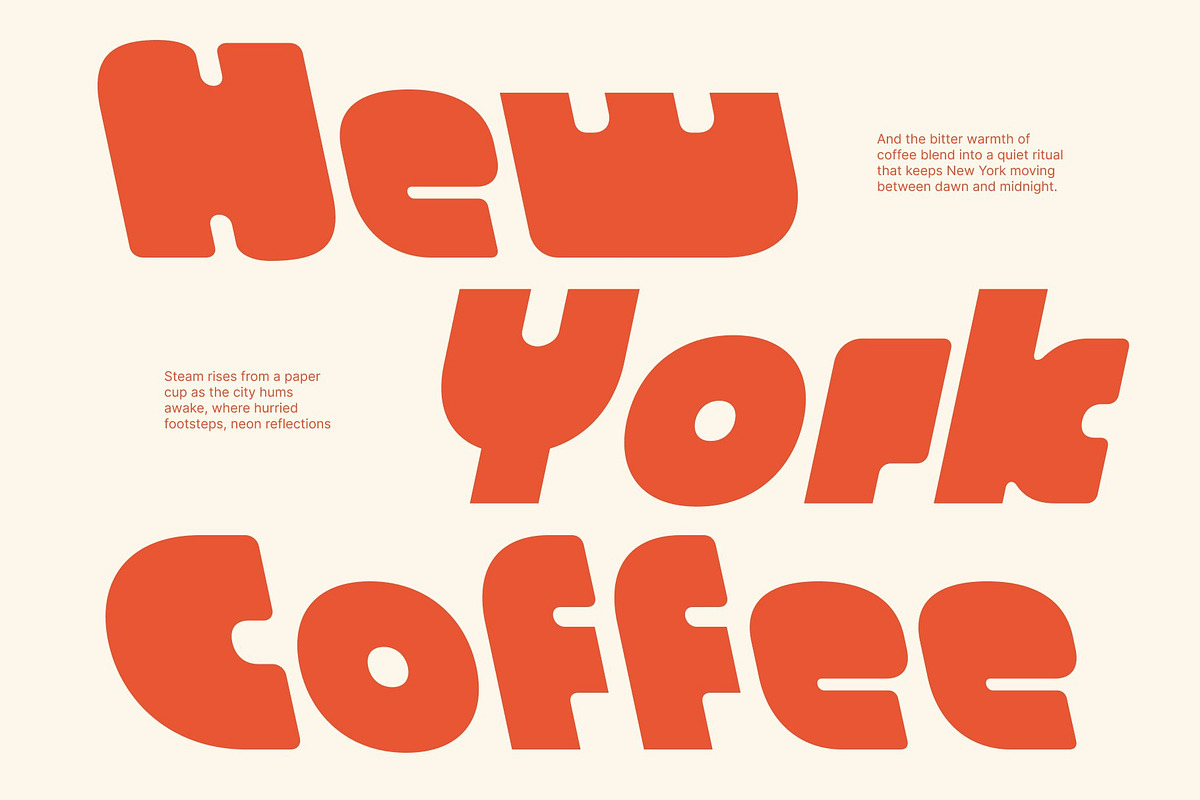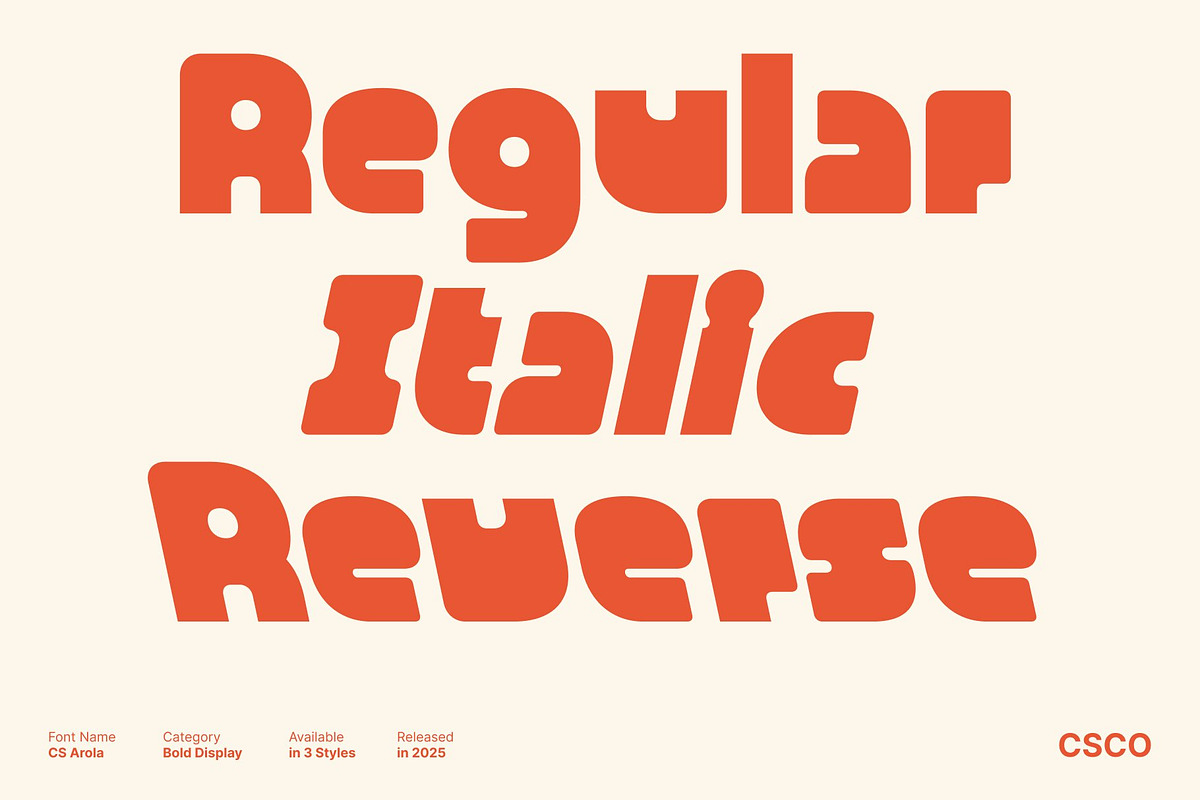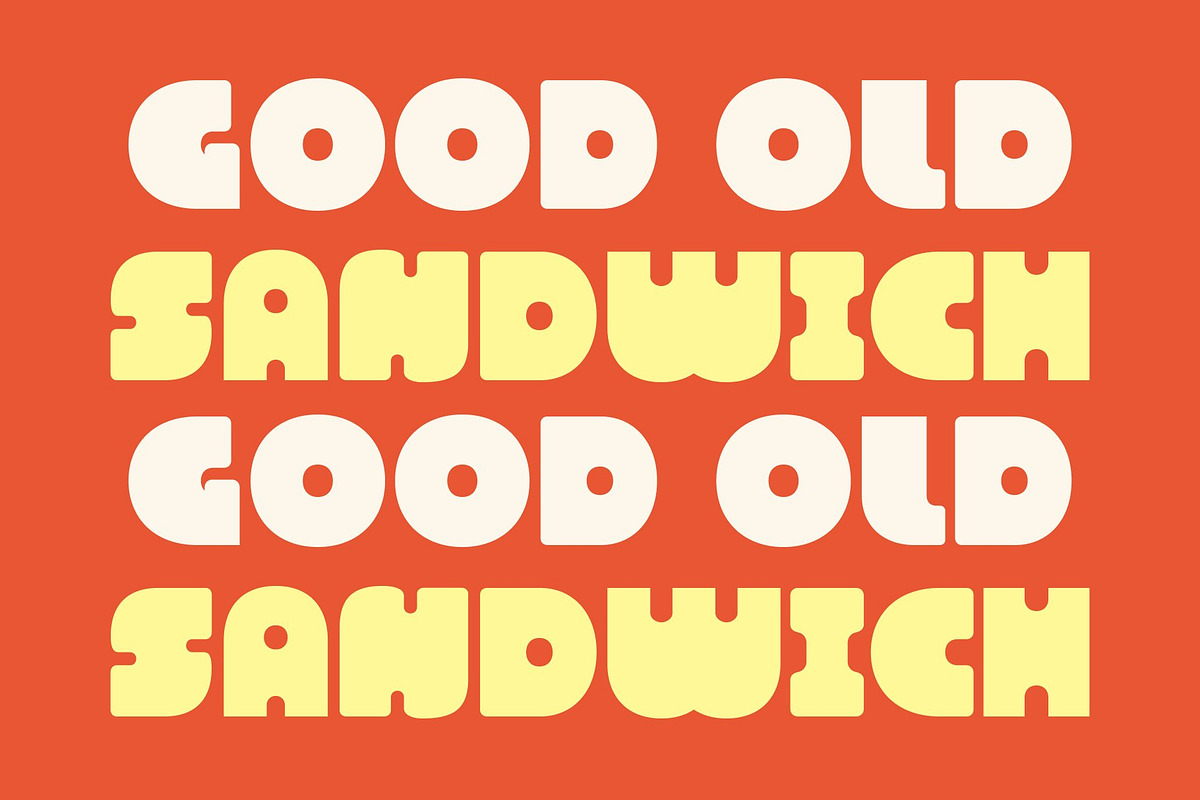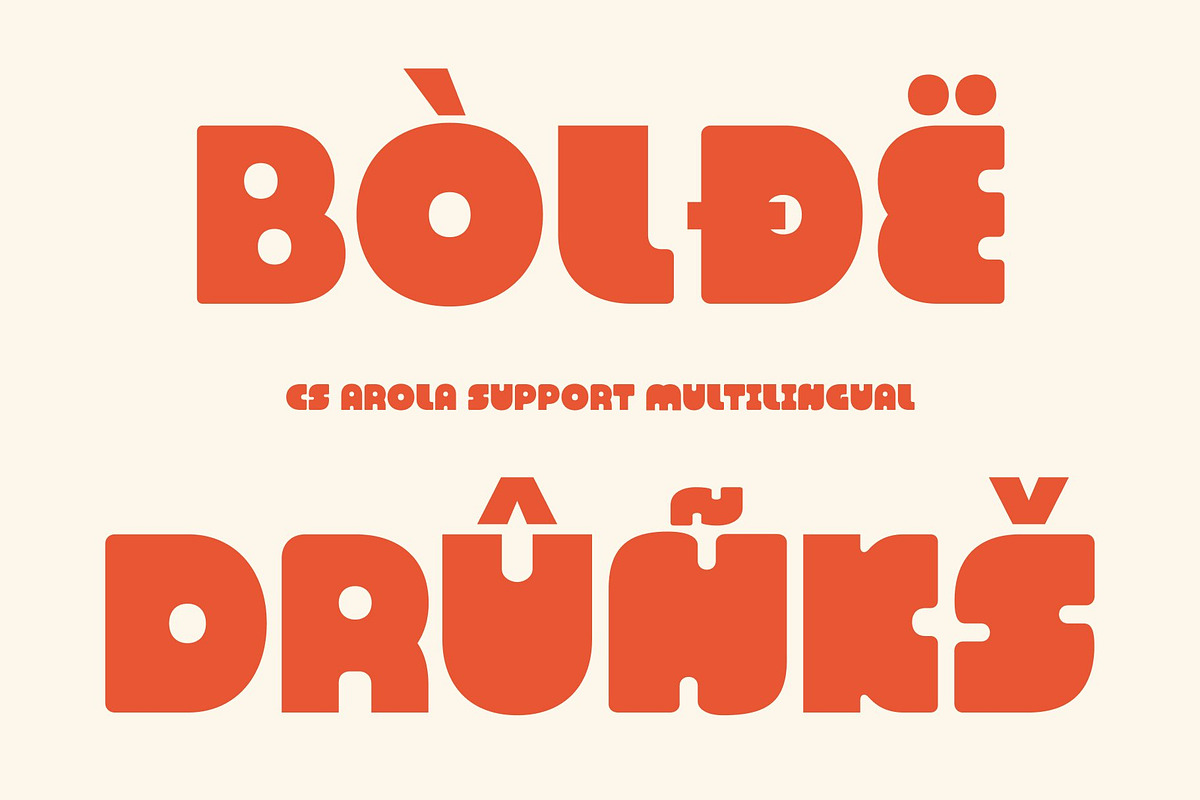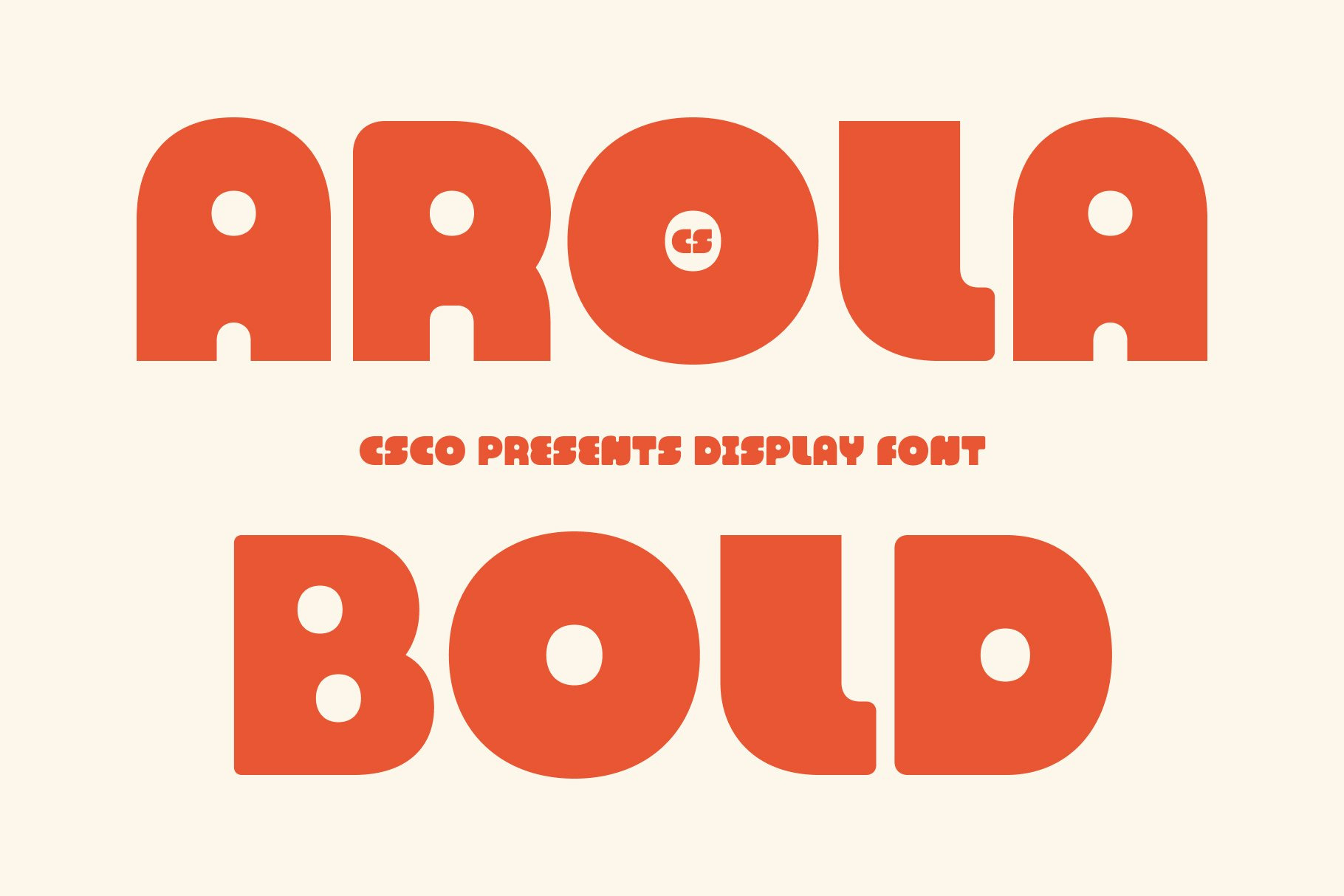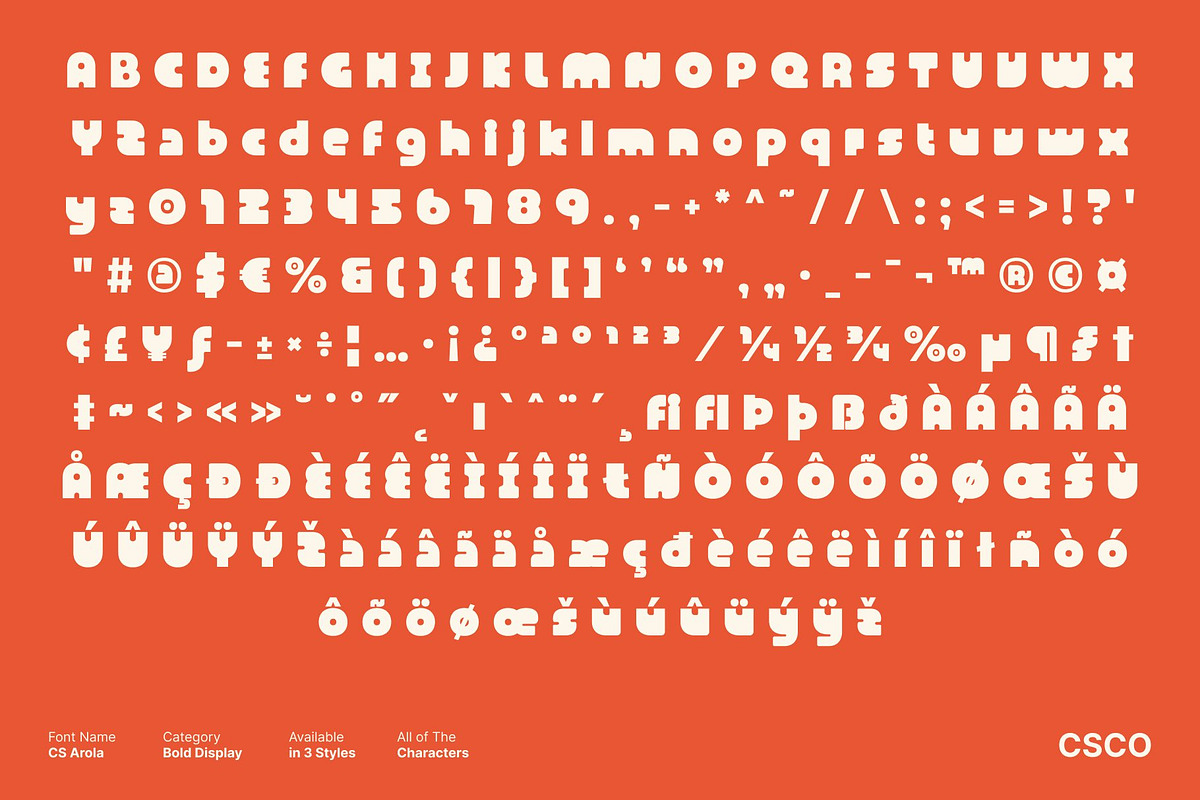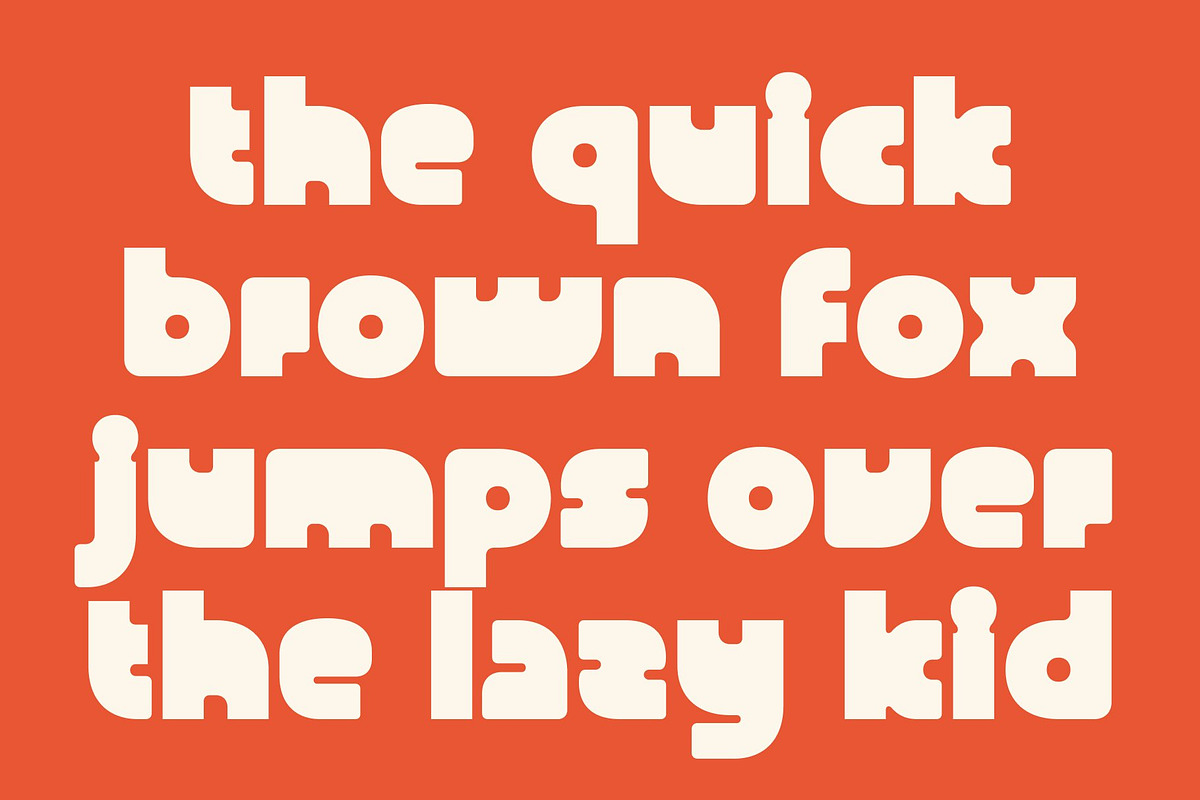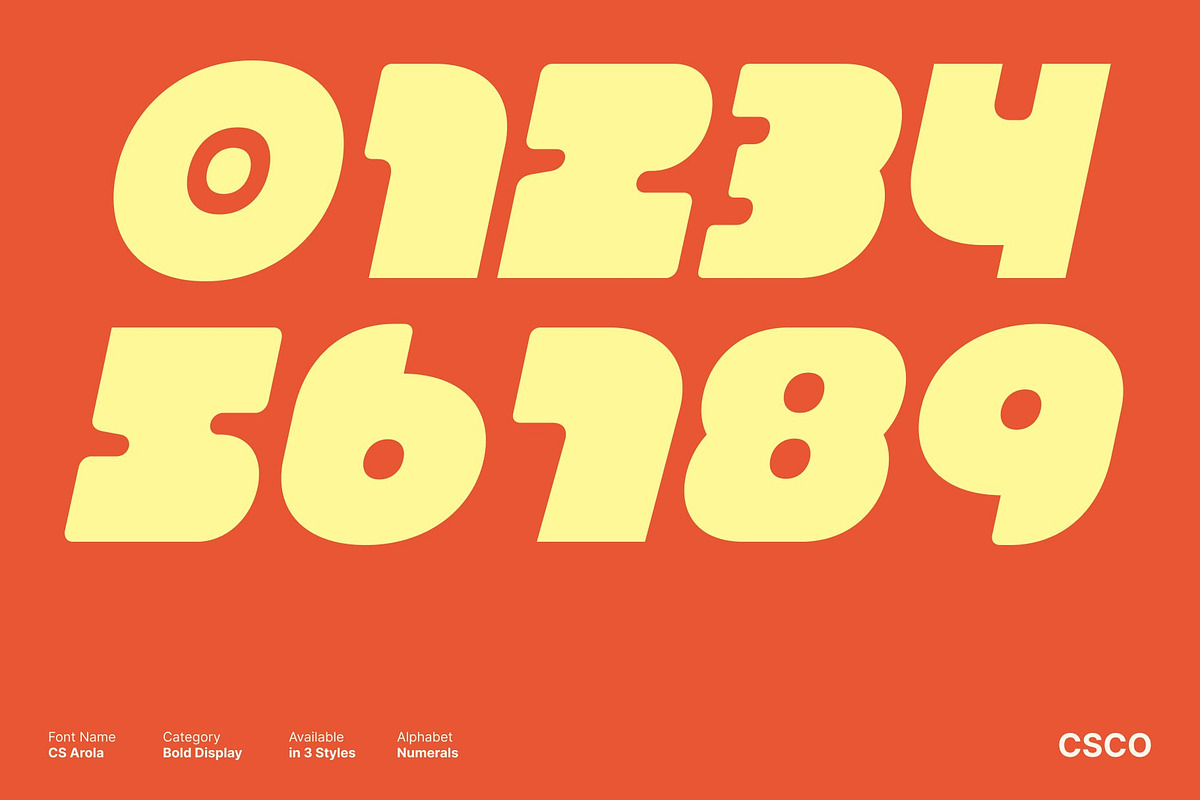
CS Arola – Bold Display Font
CS Arola – Bold Display Font: Soft Strength with Funky Confidence
Chunky Display Font with Bold Personality This is a bold display font that blends confident strength with a soft, approachable attitude. Designed with chunky letterforms and generous weight, this font delivers instant visual impact while maintaining a friendly and expressive tone. Its bold construction makes every word feel intentional, energetic, and full of presence, ensuring your message never fades into the background.
Funky Shapes with Playful Character What sets apart is its funky and expressive design. The rounded, chunky shapes add a sense of rhythm and movement, giving the font a lively personality that feels modern and fun. This playful structure creates a warm visual connection while still projecting confidence, making it ideal for designs that want to feel bold without being aggressive.
Powerful Weight with Soft Appeal Despite its heavy weight, feels smooth and inviting. The balanced proportions and softened edges create a unique contrast between power and softness, resulting in a font that is visually strong yet easy to engage with. This combination allows the font to stand out clearly, even from a distance, while remaining visually comfortable and readable.
Perfect for Impactful and Expressive Branding This font a excels in headlines, posters, packaging, social media graphics, and branding that demands attention. Its bold, chunky presence makes it especially effective for expressive branding, creative campaigns, and designs that aim to feel confident, modern, and memorable.